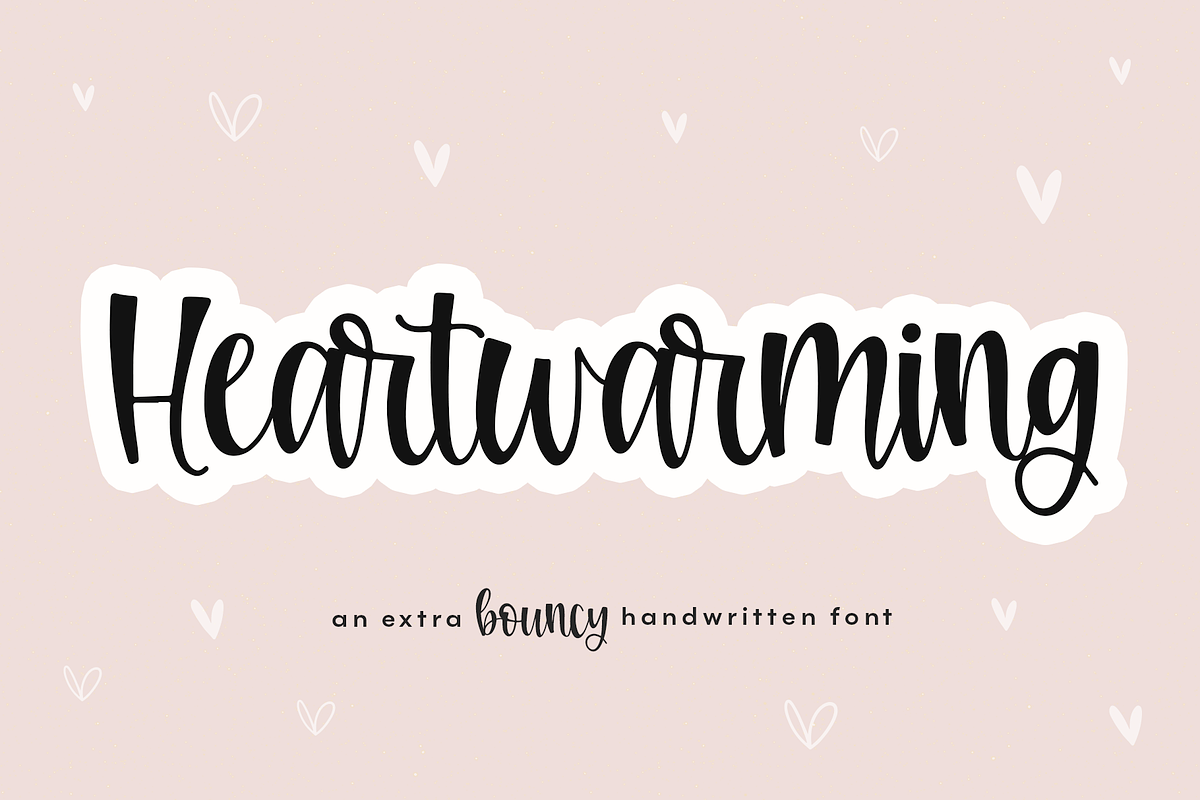
You must purchase this font for commercial use. However, you can download Heartwarming | A Bouncy Script Font Free Download for testing purposes. Heartwarming is a playful and charming script font with bouncy, whimsical letterforms that add a joyful touch to any design. Perfect for creating fun logos, greeting cards, invitations, social media graphics, and personal branding, this font exudes warmth and friendliness.
The font’s lively, flowing strokes and lighthearted feel make it ideal for projects that aim to convey happiness and creativity. Whether you're designing a children's brand, a cozy event invitation, or a casual product label, Heartwarming | A Bouncy Script Font Free Download will bring personality and cheer to your typography.